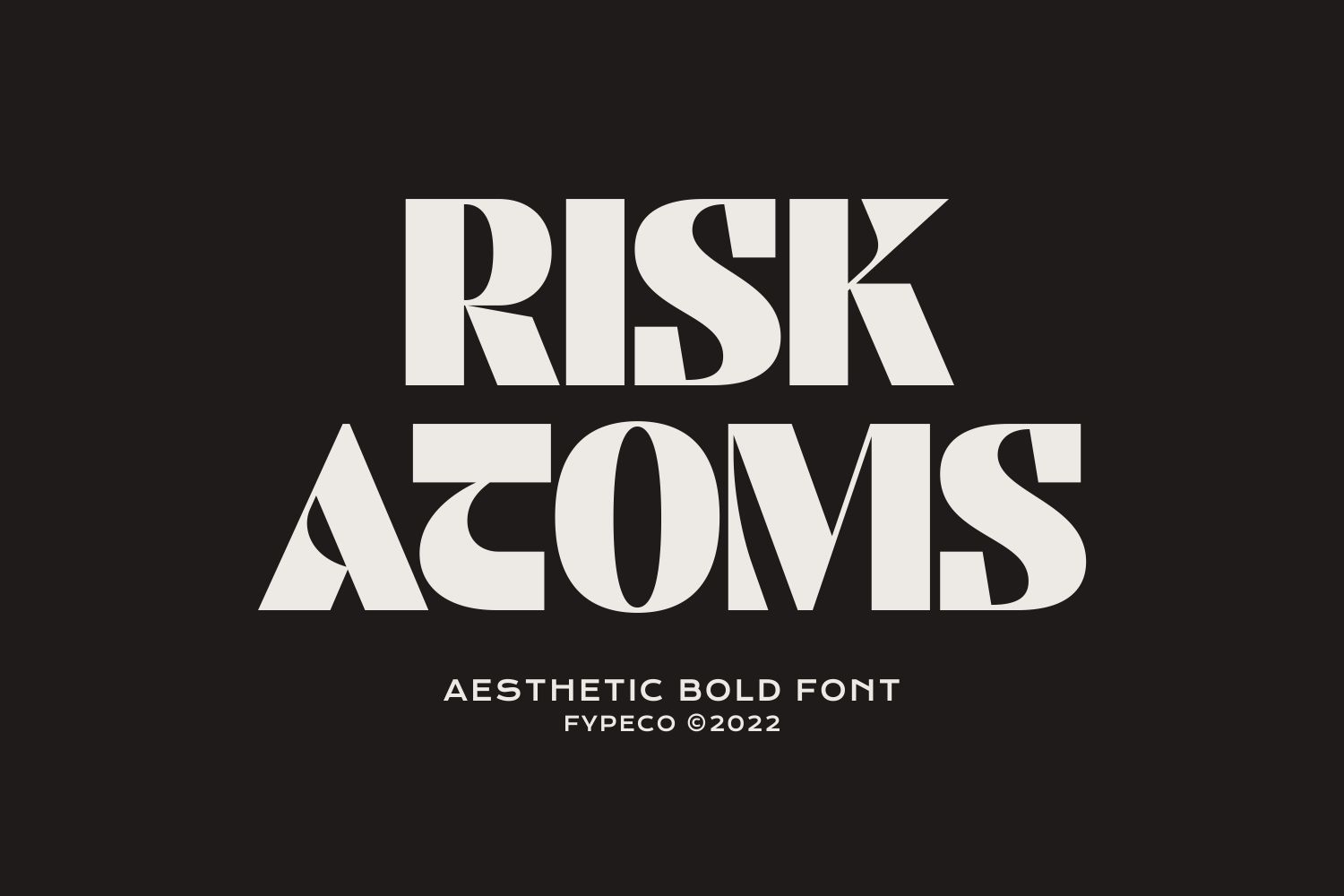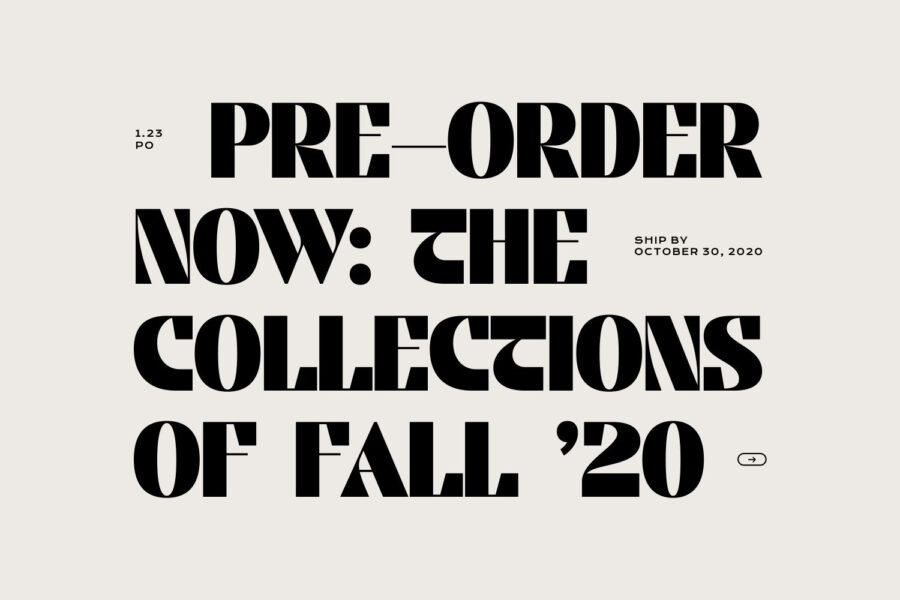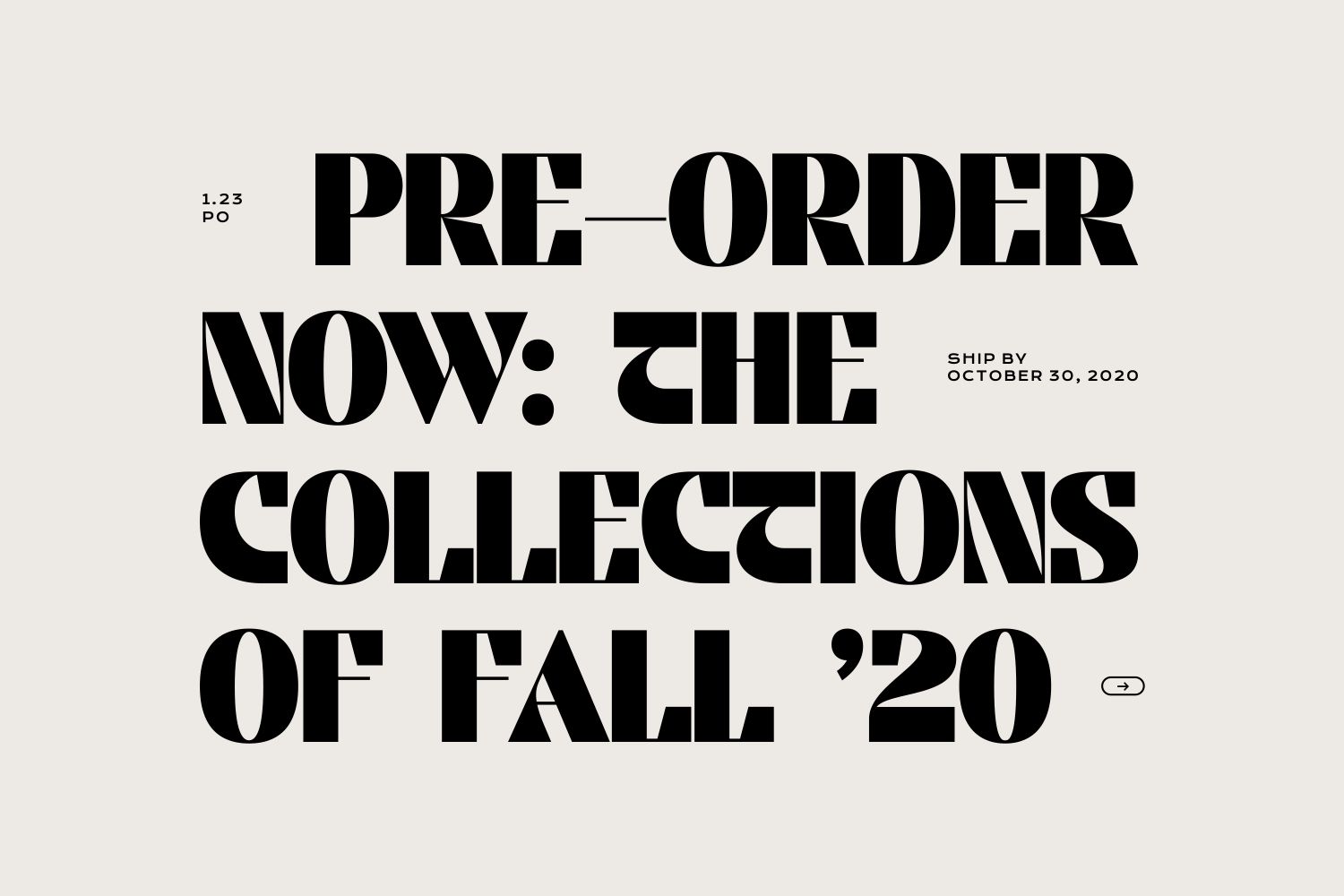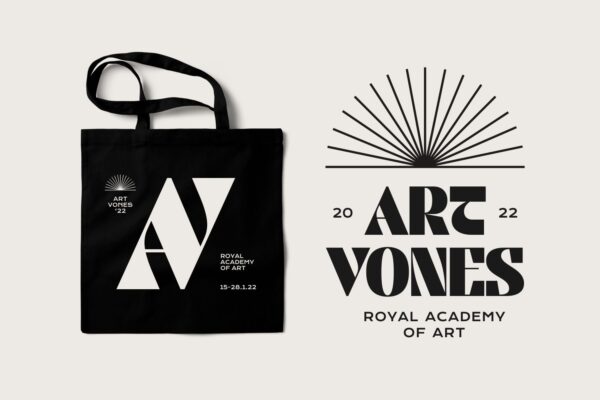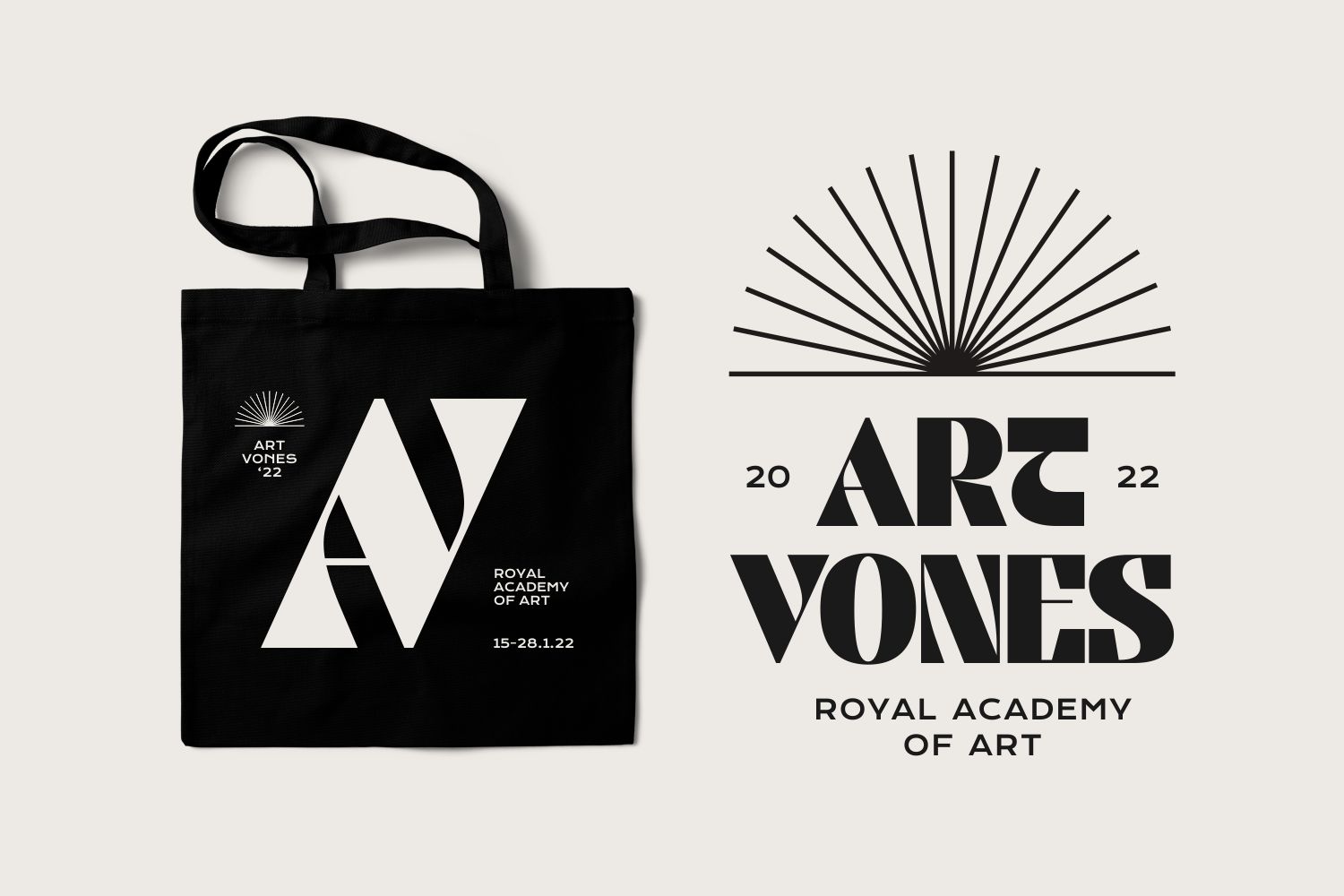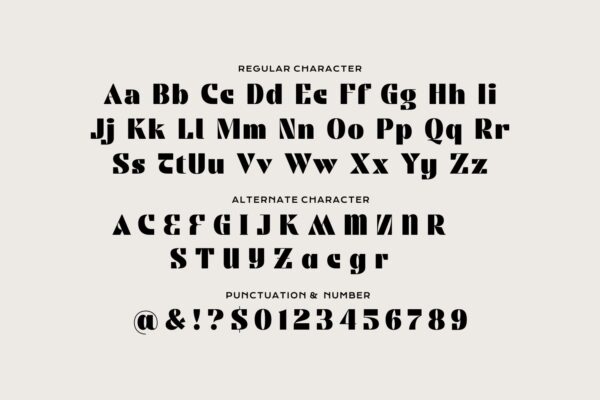
Risk Atoms
Risk Atoms is a bold aesthetic display font that blends geometric precision with artistic flair. Its strong shapes, sharp cuts, and unique stencil-inspired style make it a perfect choice for projects that demand a modern, experimental, and high-fashion look. The bold letterforms capture attention instantly, making it ideal for headlines, posters, magazine covers, and brand identities that want to stand out with confidence.
With alternate characters and creative ligatures, Risk Atoms gives designers the freedom to explore versatile layouts and custom compositions. This font is not just powerful—it’s stylish and expressive, making it suitable for luxury branding, editorial designs, packaging, and contemporary art projects. Risk Atoms turns every word into a visual statement of creativity and modern design.